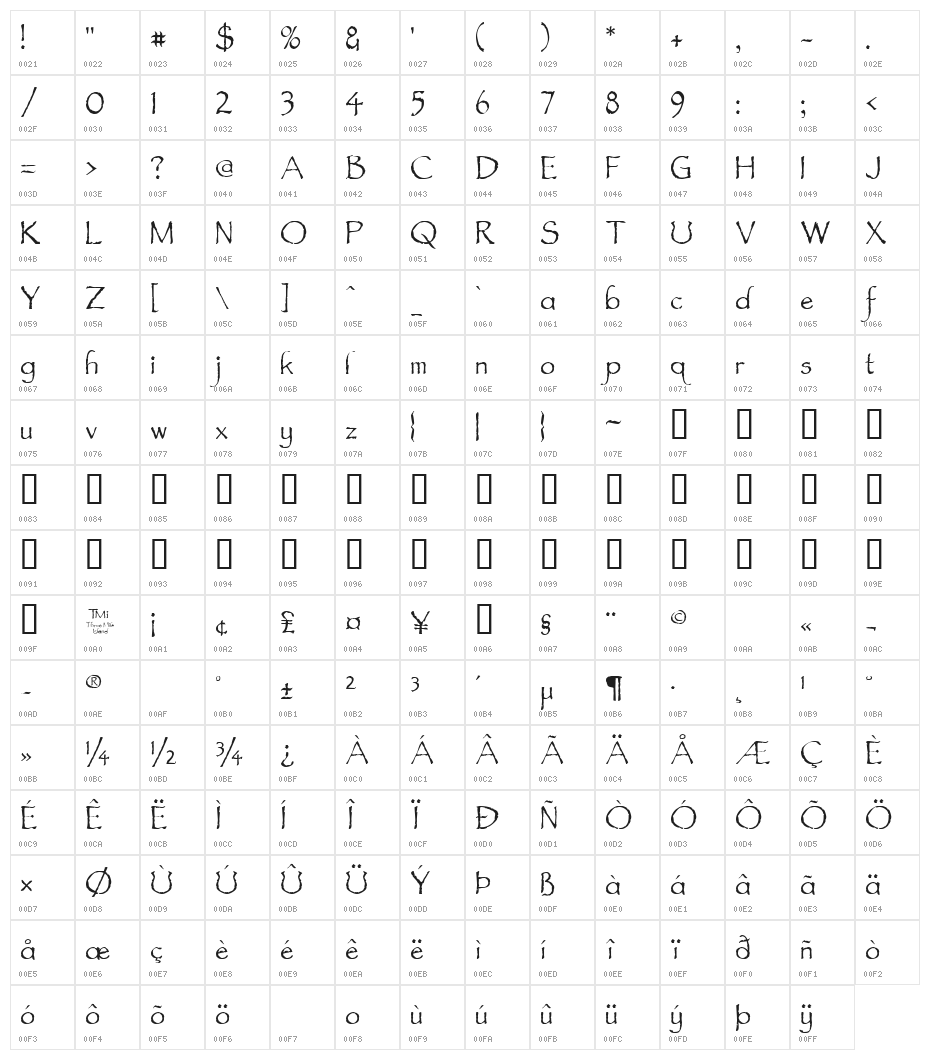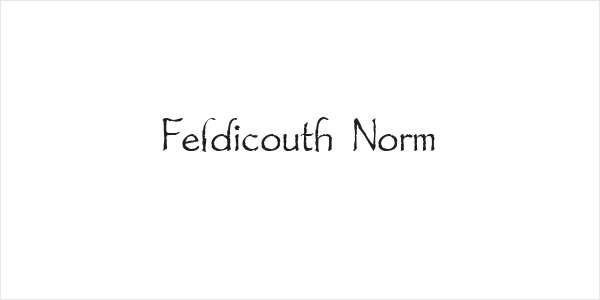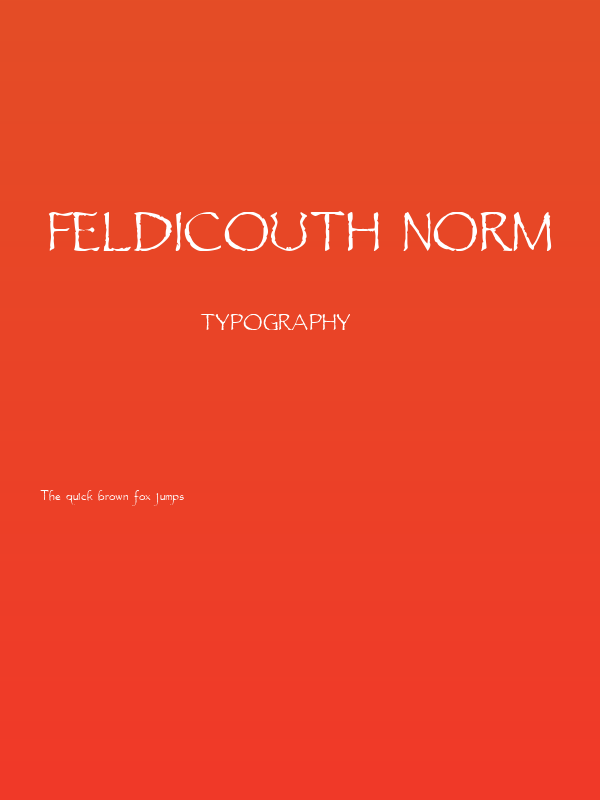
Feldicouth Norm Font
Feldicouth Norm Description
This font exhibits a unique, hand-drawn style with an organic, slightly rough texture. The characters have an irregular, artistic appearance, giving them a whimsical and creative feel. The uppercase letters are bold and prominent, while the lowercase letters maintain a consistent style with a slightly narrower form. Numbers and special characters follow the same artistic theme, adding to the font's cohesive look. The overall design suggests a playful yet sophisticated tone, suitable for projects requiring a touch of individuality and flair.
| Overall Style | Artistic, Whimsical |
| Proposed Projects | Ideal for creative projects such as invitations, greeting cards, posters, and branding materials that require a unique and artistic touch. |